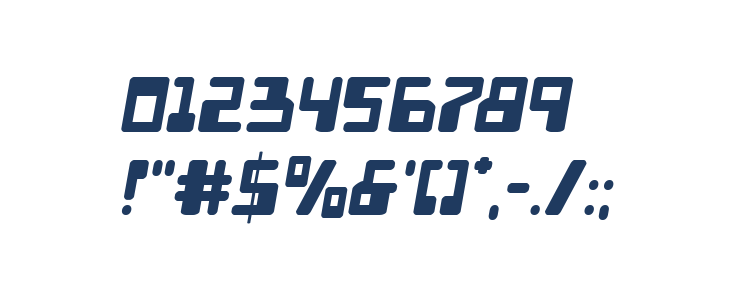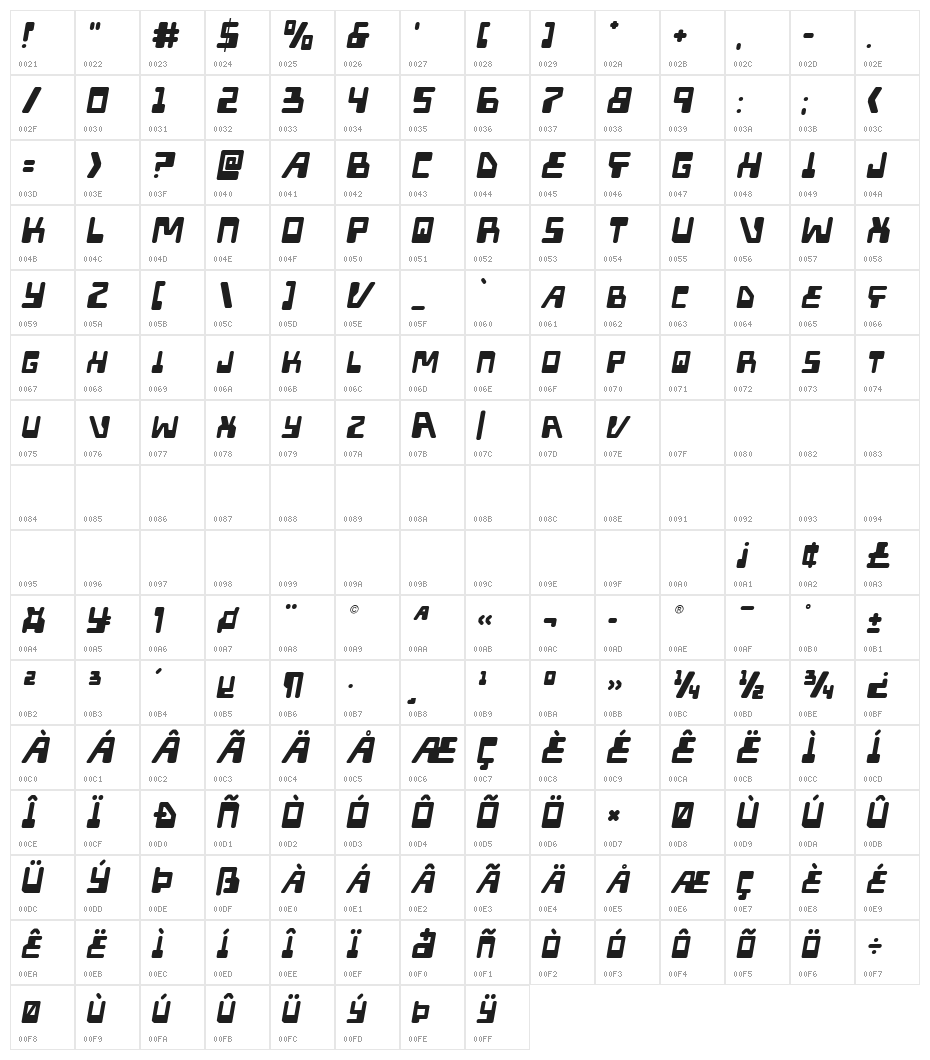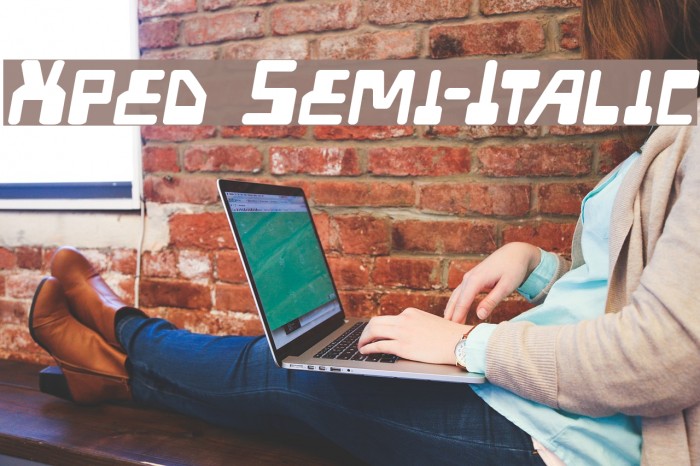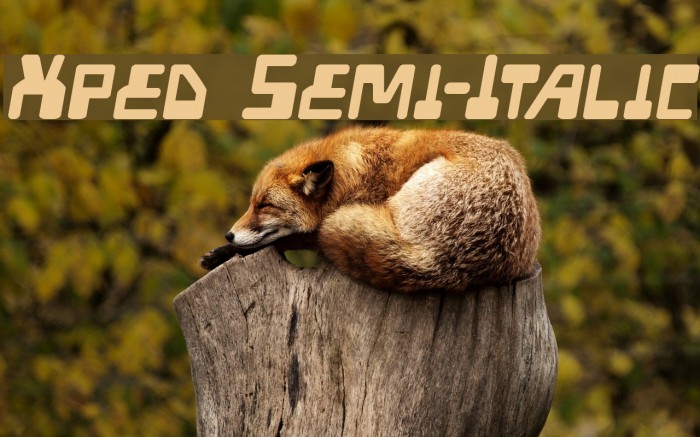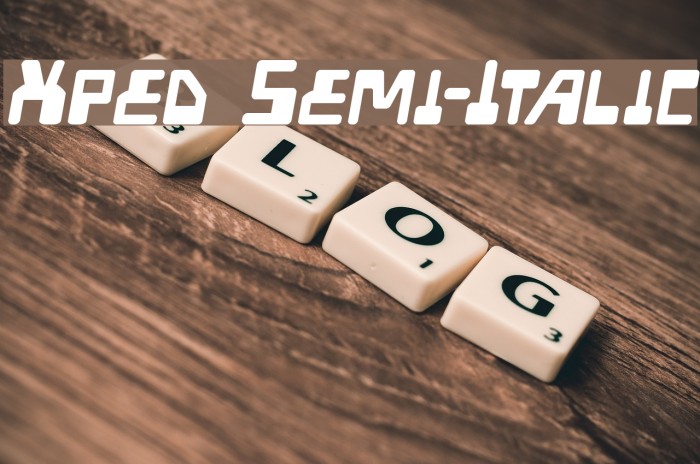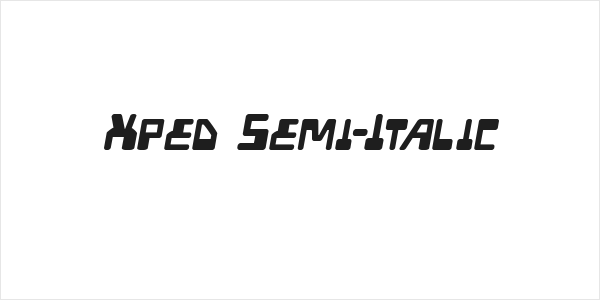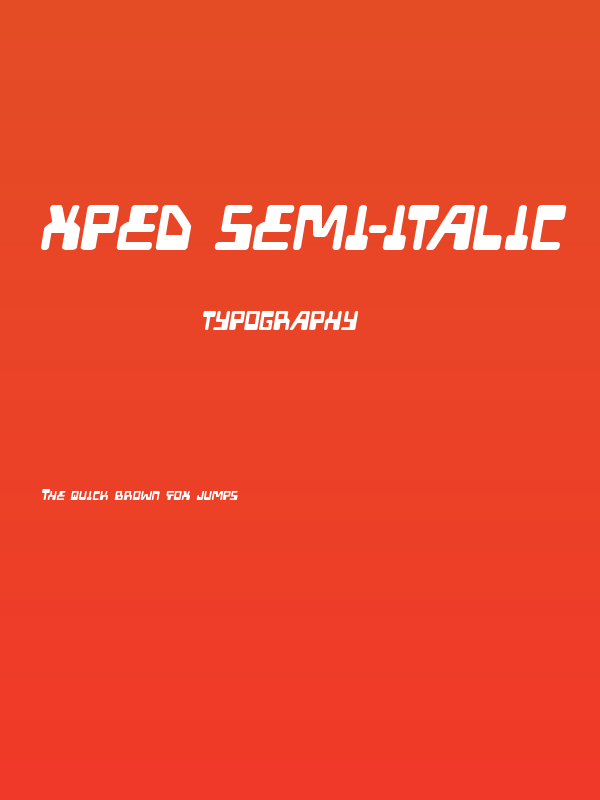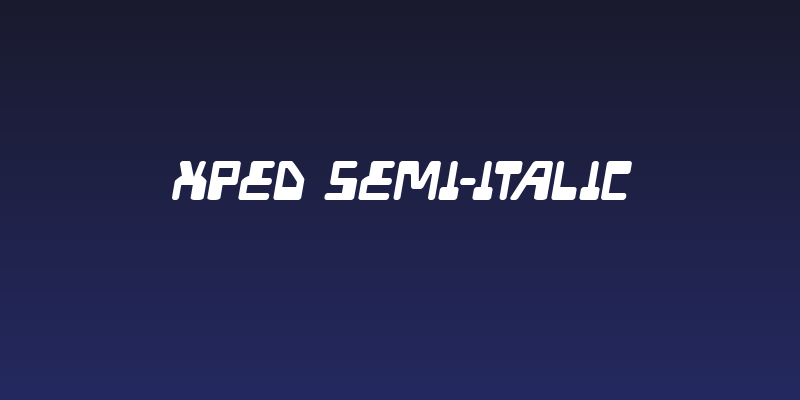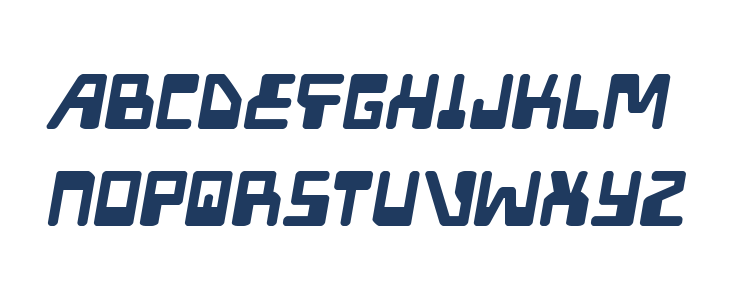
Xped Semi-Italic Font
Xped Semi-Italic Description
This font features a bold and dynamic design with a futuristic flair. The characters are slightly italicized, giving them a forward-leaning appearance that suggests movement and speed. The strokes are thick and consistent, providing a strong visual impact. The geometric shapes of the letters, combined with the angular cuts, create a modern and edgy look. The font maintains uniformity across uppercase, lowercase, numbers, and special characters, ensuring readability and versatility. Its distinct style makes it suitable for projects that require a bold statement.
Proposed ProjectsIdeal for technology branding, sports team logos, video game titles, and sci-fi themed posters.